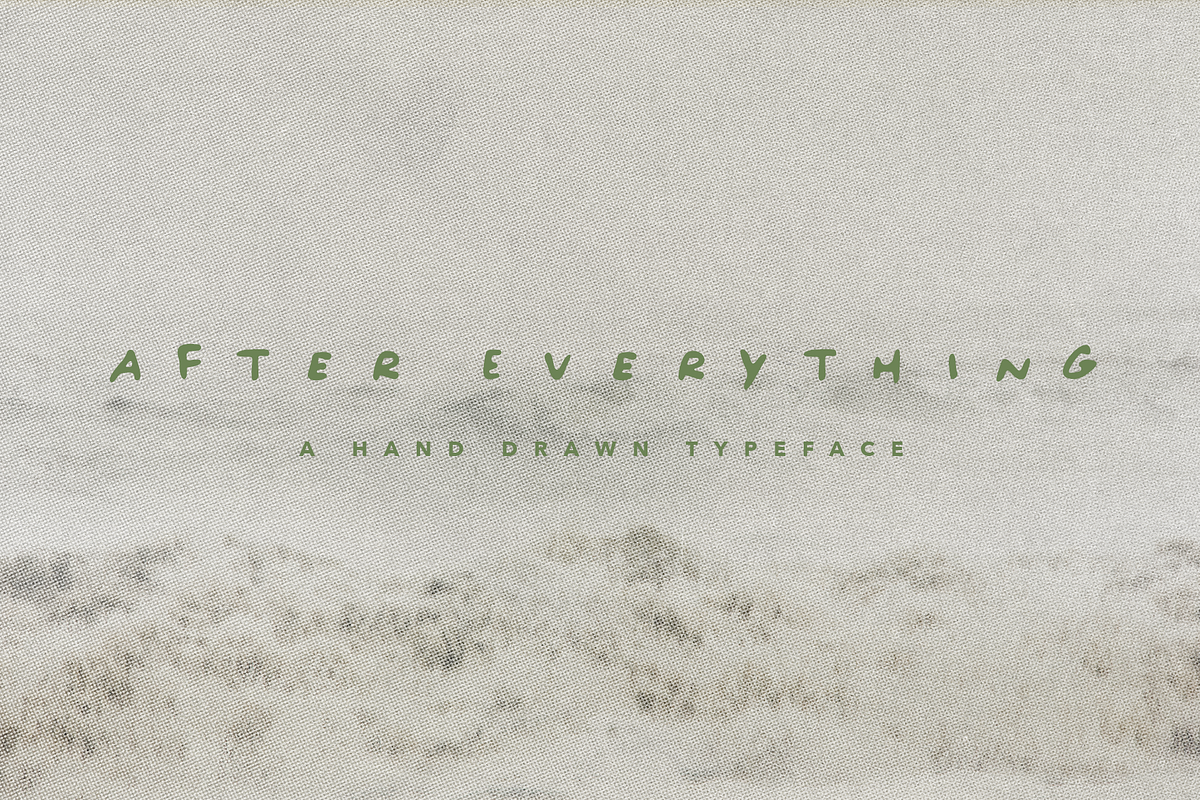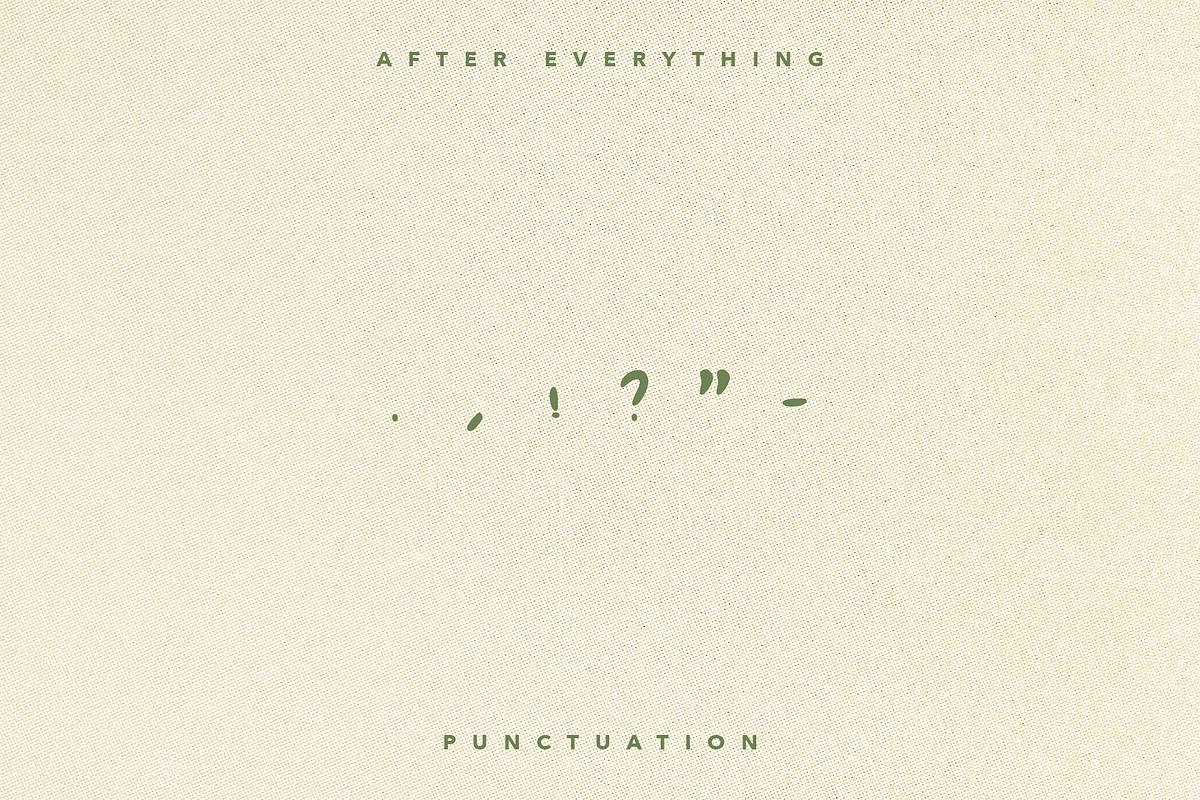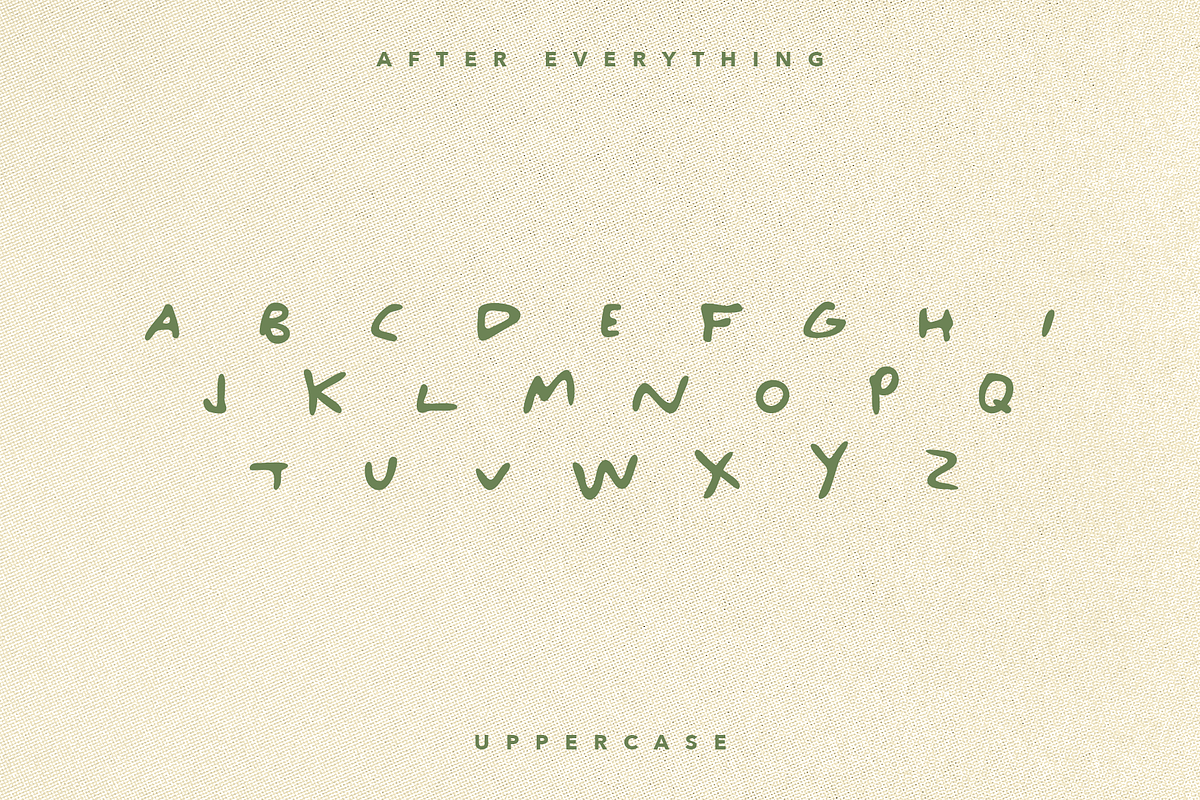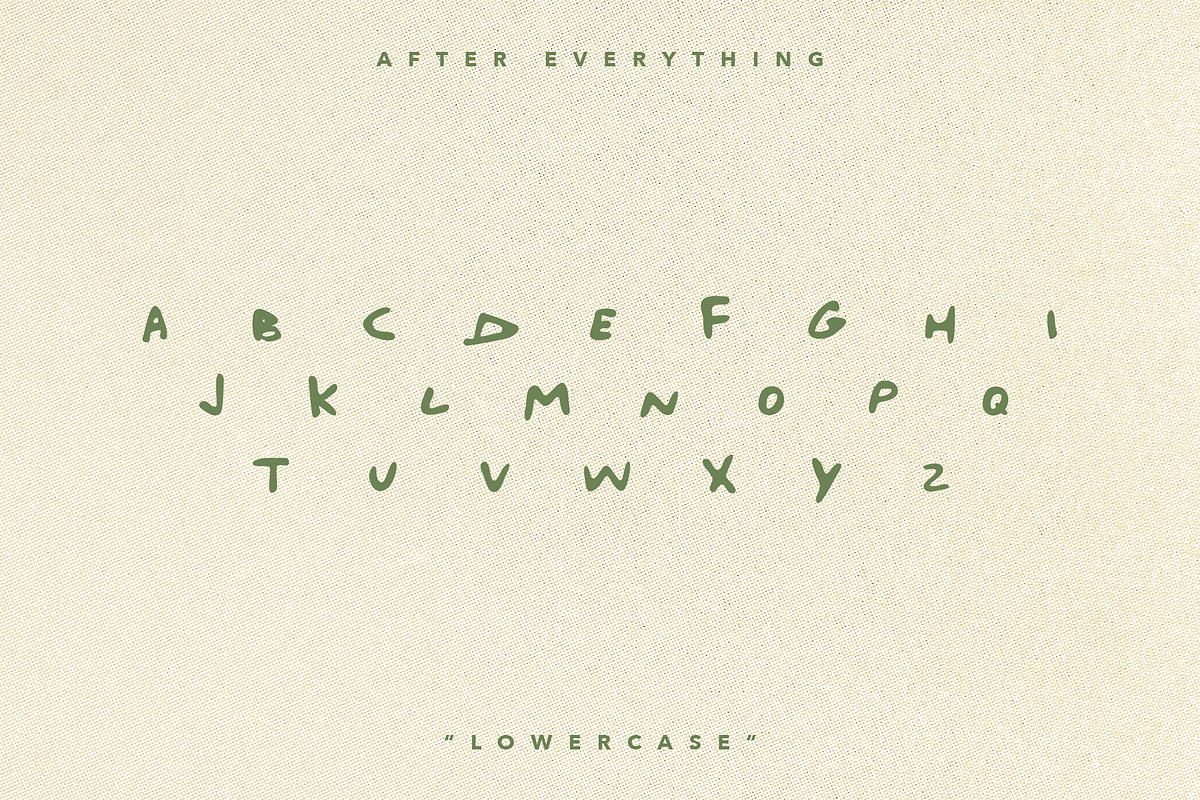
AFTER EVERYTHING | A Hand Drawn Font
Introducing After Everything – a hand-drawn monospace typeface crafted to bring a natural, organic touch to your creative projects. Its clean, even spacing pairs perfectly with its imperfect, human-made feel, making it versatile for everything from branding to heartfelt designs.
- Includes uppercase characters and basic punctuation.
- Designed to convey warmth and authenticity in any context.
- Perfect for logos, posters, quotes, invitations, and more."
Please note: This typeface is uppercase only. There is no true "lowercase" version, but a second set of capitalized characters is included in place of the lowercase.